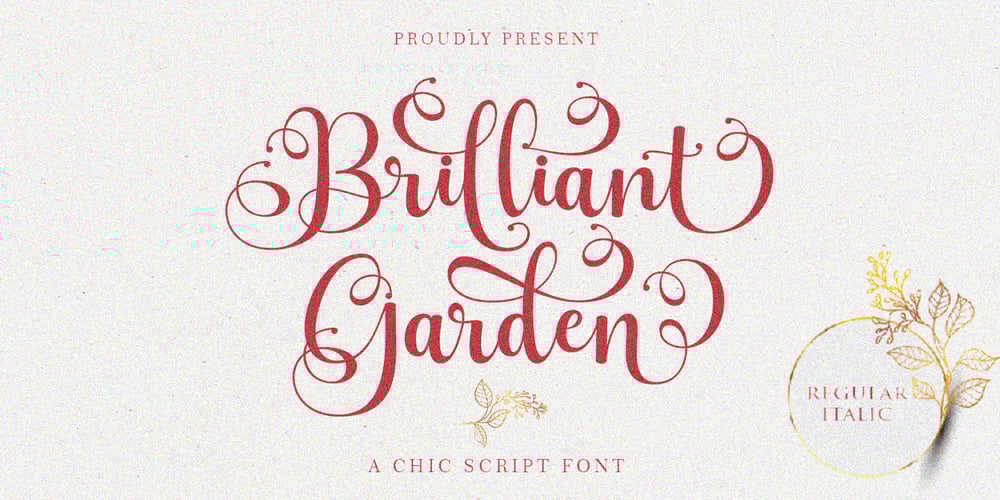
Brilliant Garden Font Family was designed by Romi Rahmadi and published by Romie Creative. Brilliant Garden contains 2 styles and family package options. Brilliant Garden is a soft and sweet calligraphic typeface, with characters dancing along its basic lines. It has a casual and elegant touch. Can be used for various purposes such as logos, wedding invitations, headings, t-shirts, letterheads, signage, labels, news, posters, badges etc.Files include:OpenType features with alternative styles, ligatures, and multiple language support.To enable the OpenType Stylistic alternative, you need a program that supports OpenType features such as Adobe Illustrator CS, Adobe Indesign & CorelDraw X6-X7, Microsoft Word 2010 or later.How to access all alternative characters, using the Windows Character Map with Photoshop:https://www.youtube.com/watch?v=Go9vacoYmBwHow to access all alternative characters using Adobe Illustrator:http://youtu.be/iptSFA7feQ0There are additional ways to access alternatives/swashes, using the Character Map (Windows), Nexus Font (Windows), Font Book (Mac) or a software program such as PopChar (for Windows and Mac).Need help? If you need help or advice, please contact me by email.Thank You!